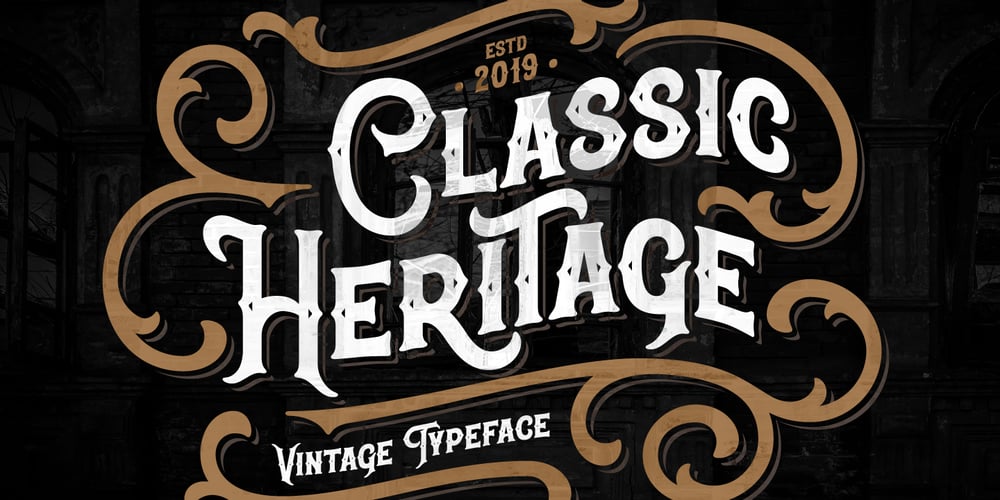
Classic Heritage
Classic Heritage font
Classic Heritage Font Family was designed by Gleb Guralnyk and published by Gleb Guralnyk. Classic Heritage contains 1 styles and family package options. This vintage typeface named “Classic Heritage” has a steampunk look and was inspired by old-school lettering styles. The 13 stylistic alternate letters can help you to create a unique and interesting text composition.